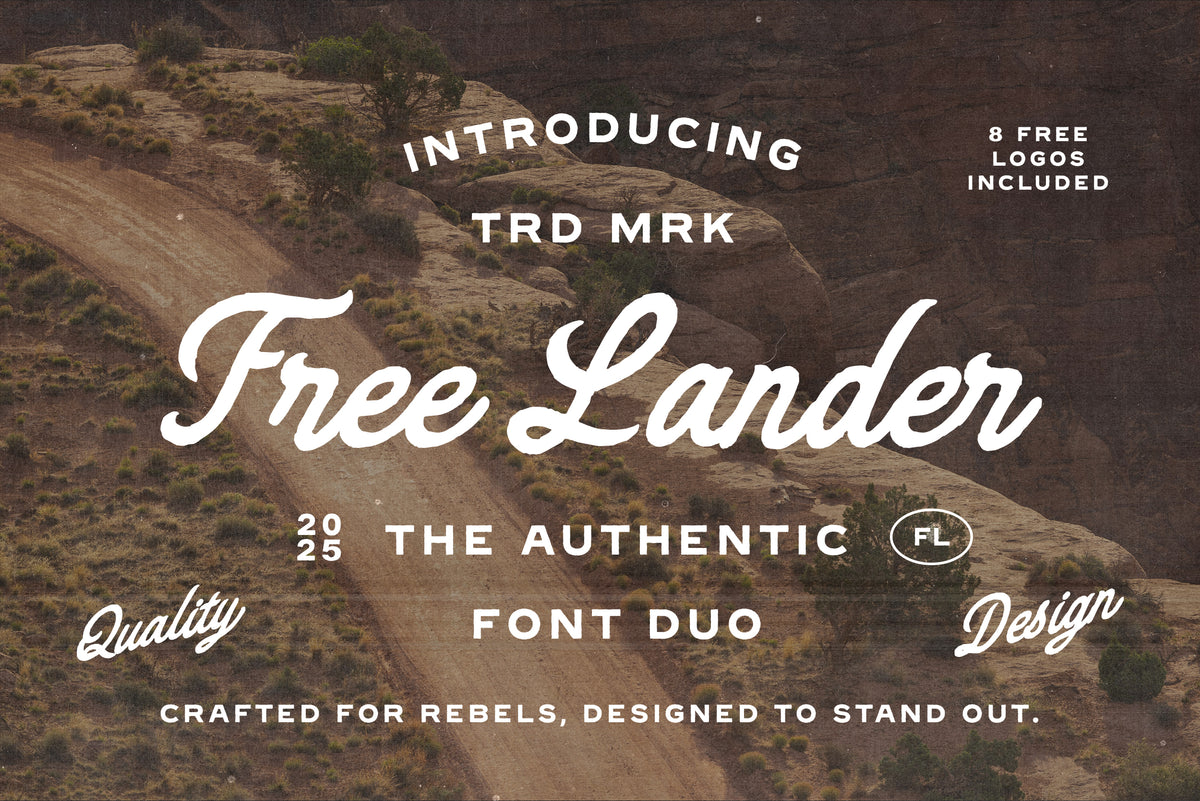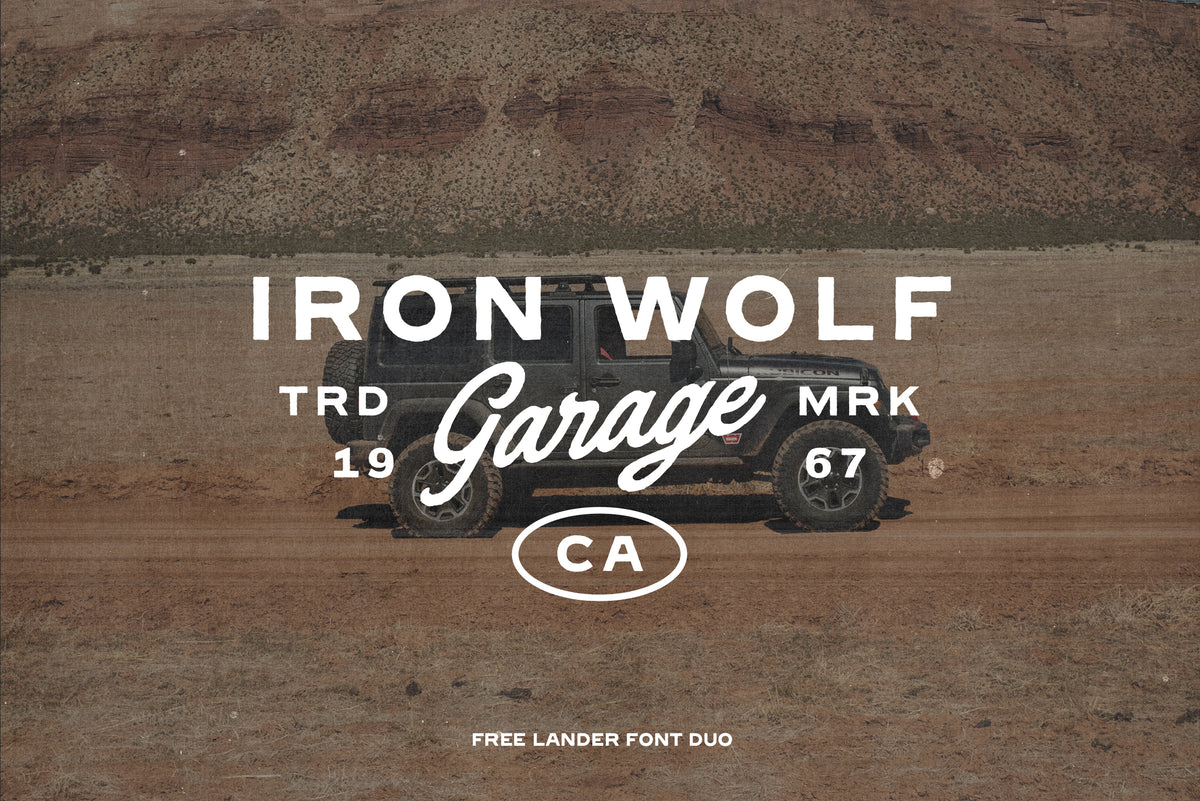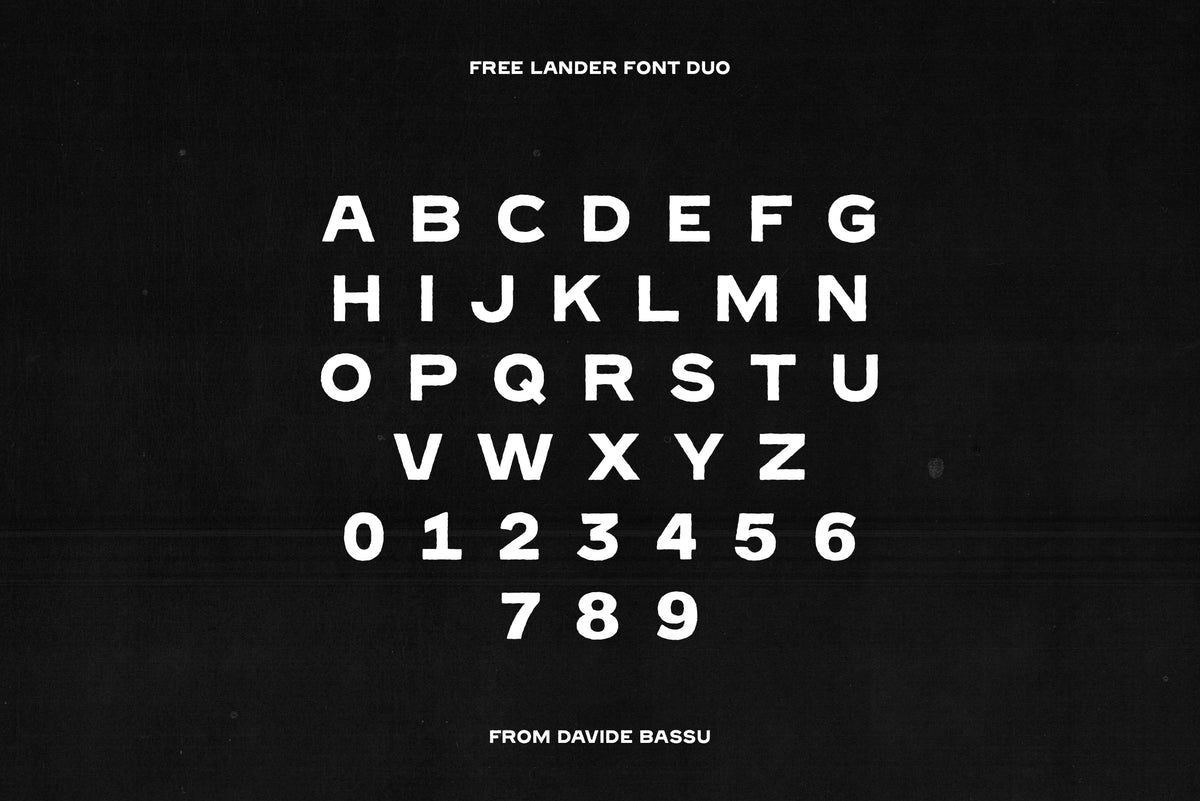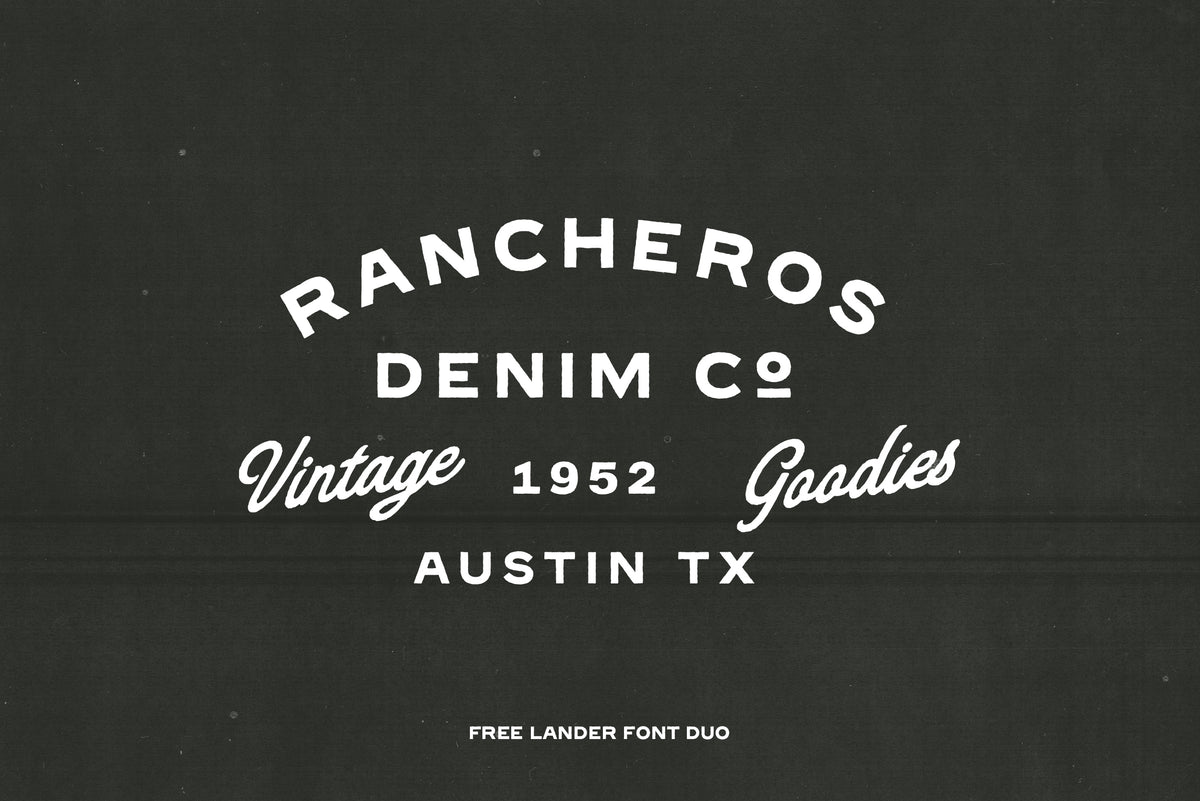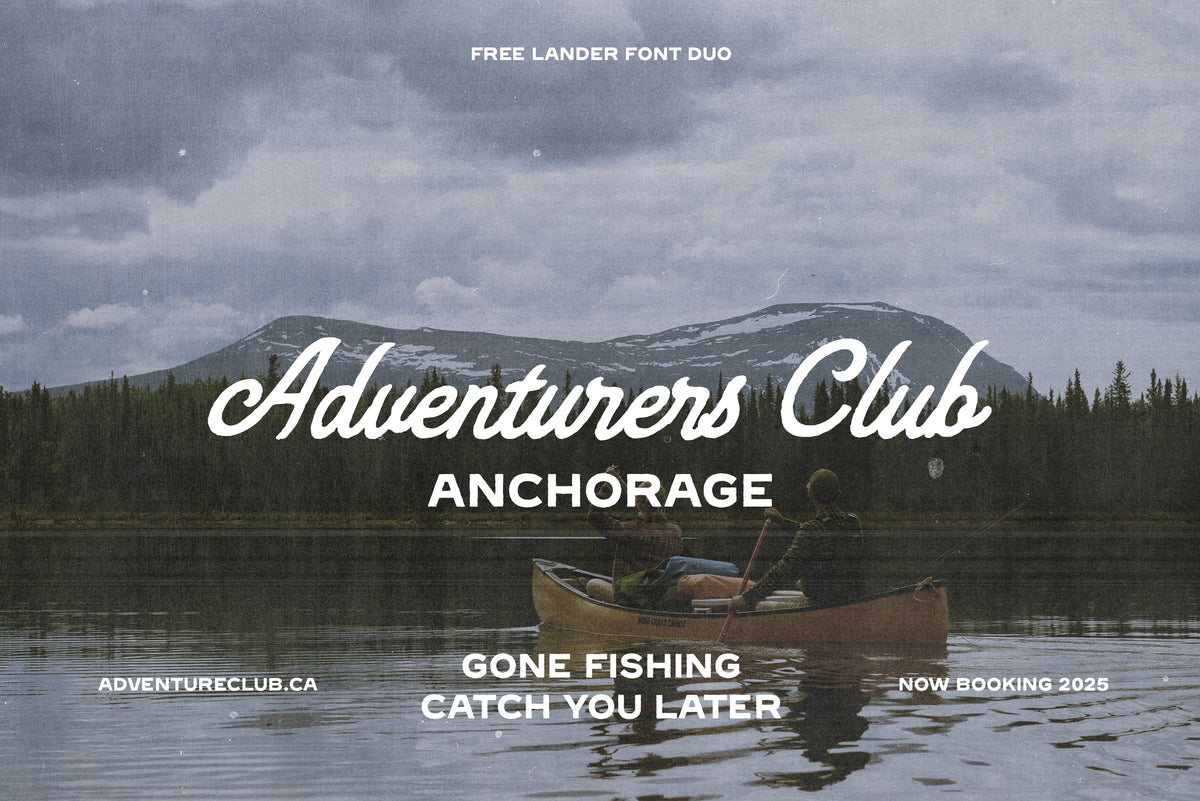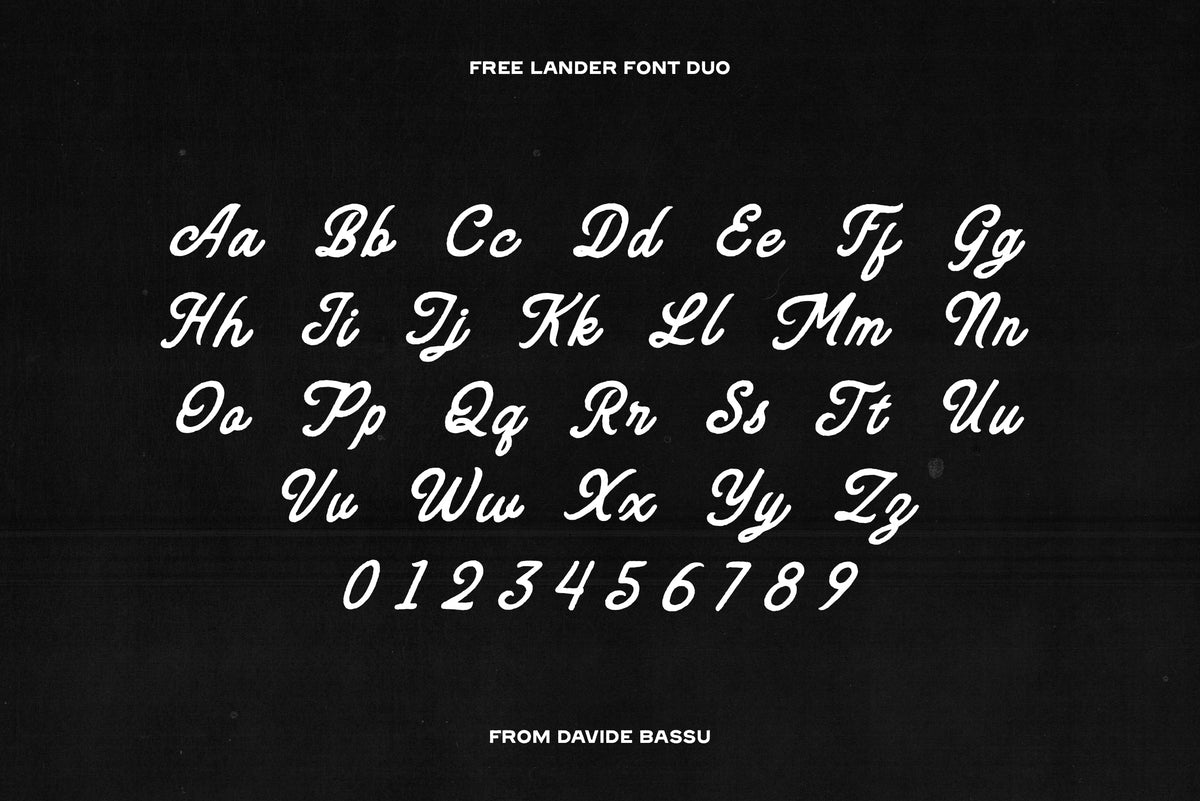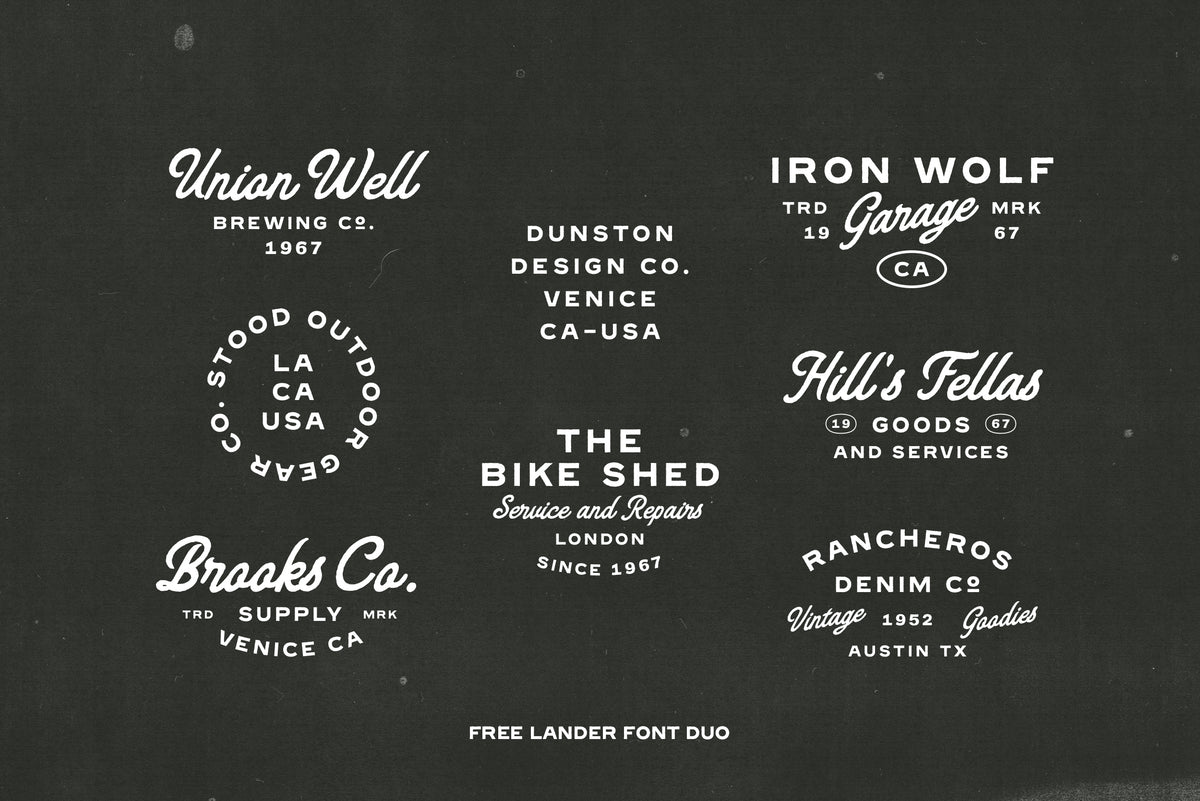
Free Lander - Font Duo + Extra
Bold, raw, and made to stand out. Free Lander brings together a handcrafted script and a rugged handmade sans to give your designs a unique blend of grit, soul, and vintage attitude.
Designed for logos, apparel, packaging, posters, and bold branding, this duo adds instant character to any project. The flowing script brings energy and authenticity, while the sturdy sans keeps your layout strong and clear.
Built with an adventurous, rebellious edge, Free Lander isn’t just another font pair — it’s a creative weapon for designers who want their work to feel real, powerful, and unforgettable.